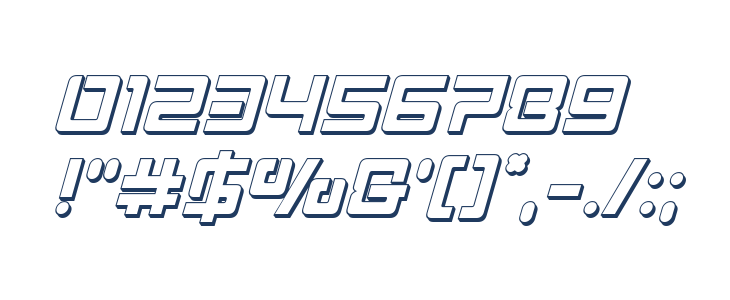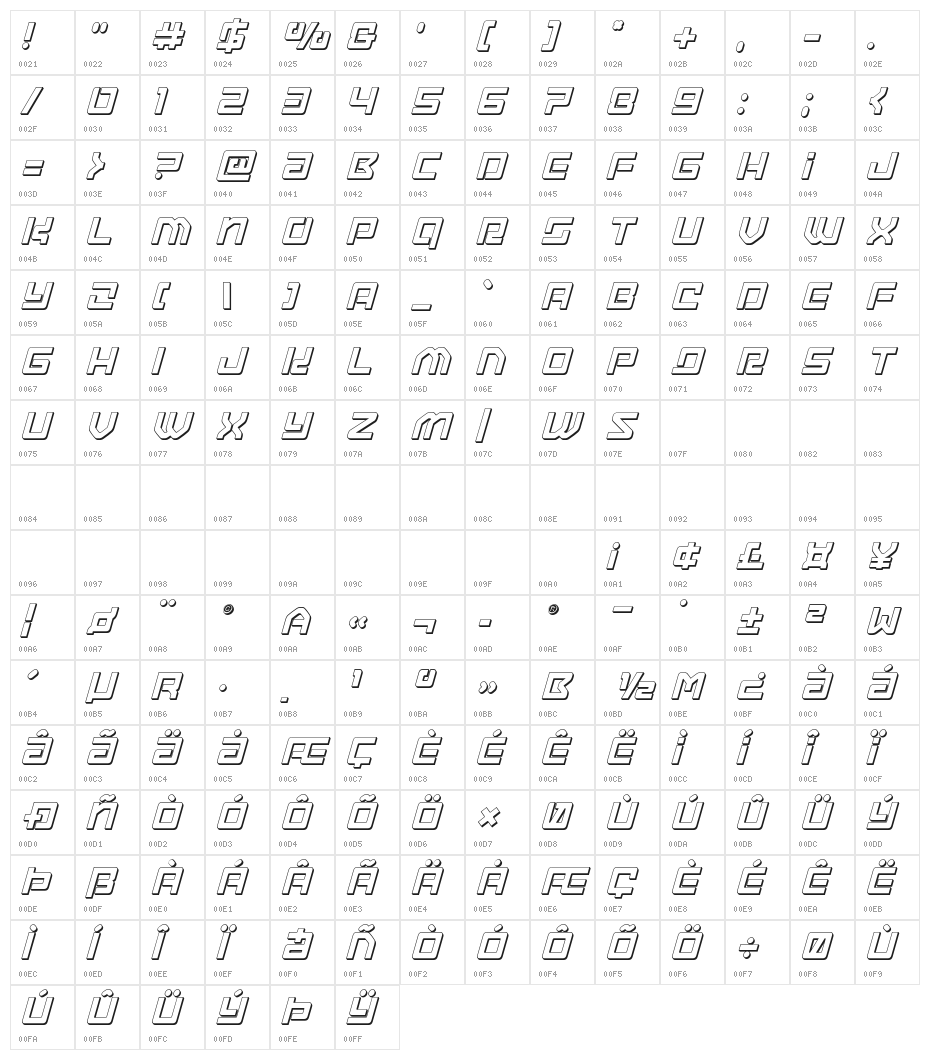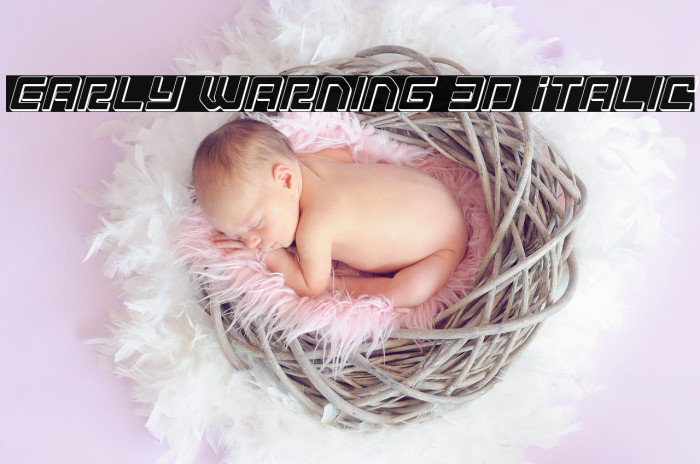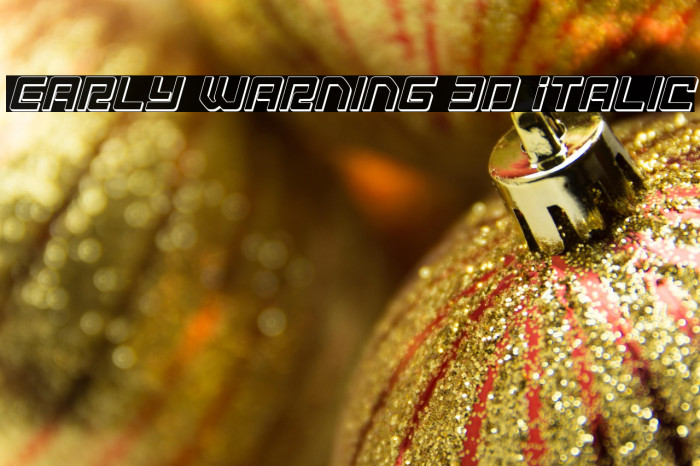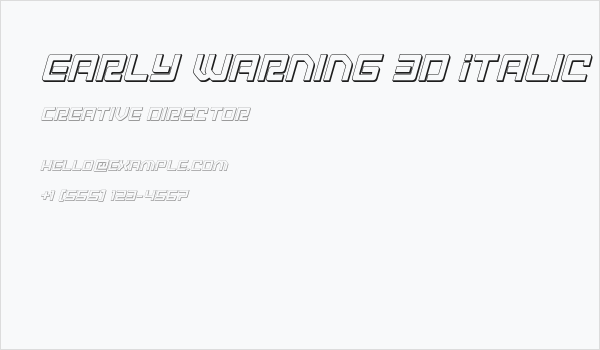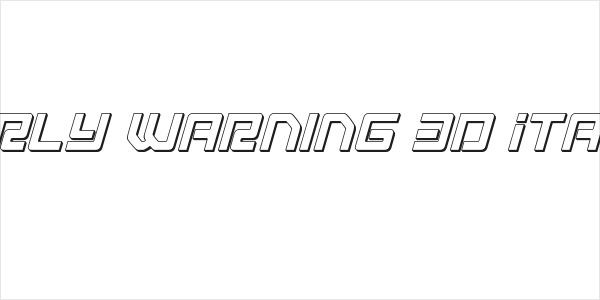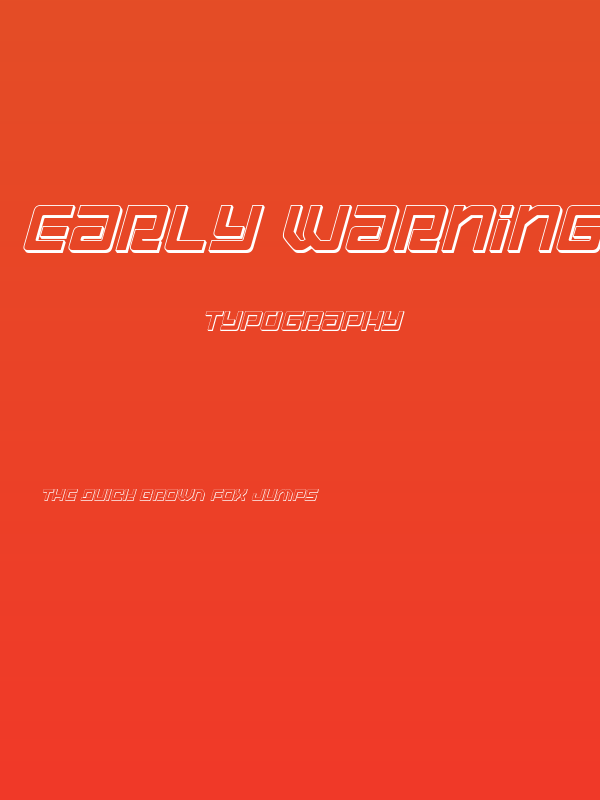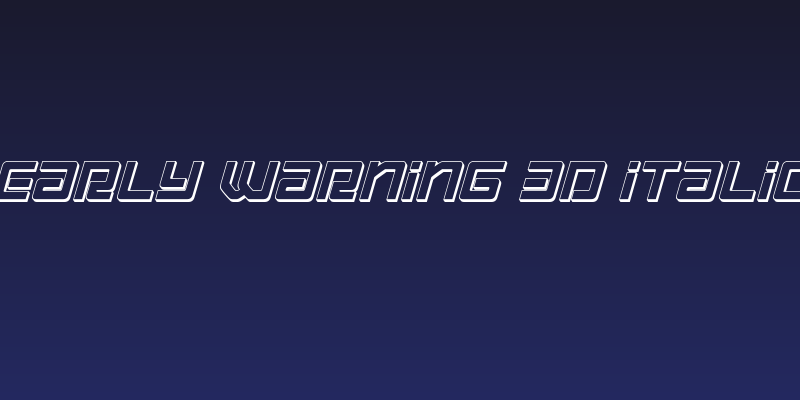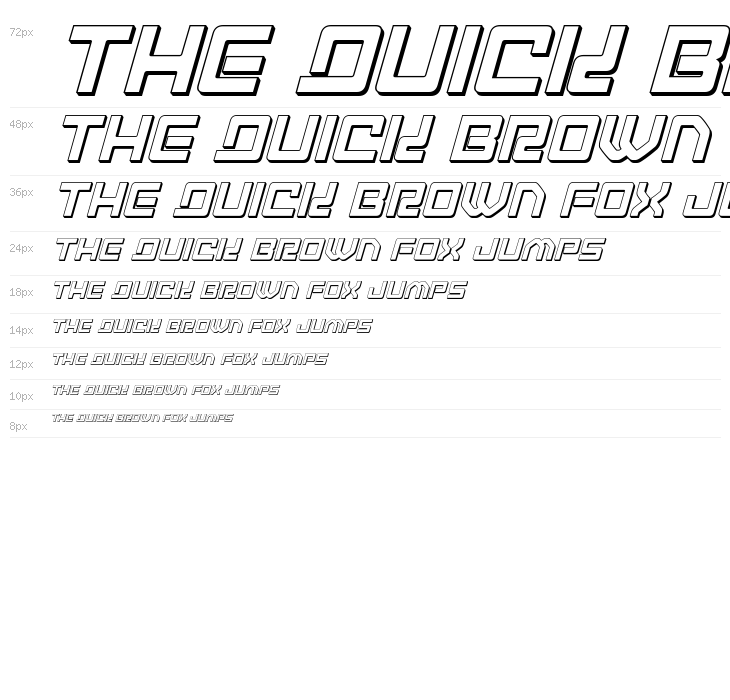
Early Warning 3D Italic Font
Early Warning 3D Italic Description
This font features a bold, futuristic design with a 3D effect that gives each character a sense of depth and dimension. The letters are outlined, creating a hollow appearance that enhances their modern aesthetic. The italicized style adds a dynamic, forward-leaning motion, making it ideal for projects that require a sense of speed or innovation. The uppercase and lowercase letters maintain a consistent geometric structure, while the numerals and special characters complement the overall design. This font's unique style is perfect for eye-catching headlines, logos, or any creative project that demands attention.
Proposed ProjectsIdeal for futuristic branding, tech-related logos, sci-fi posters, and dynamic headlines.